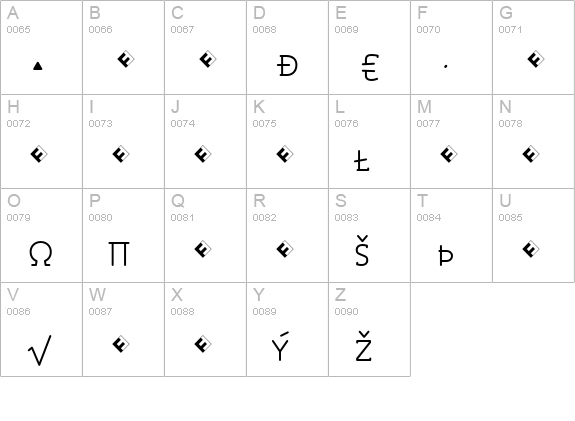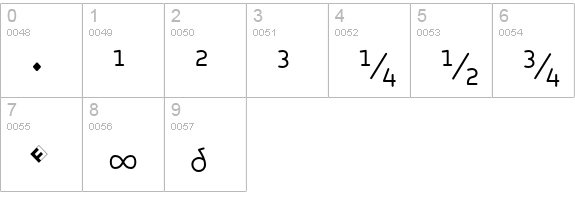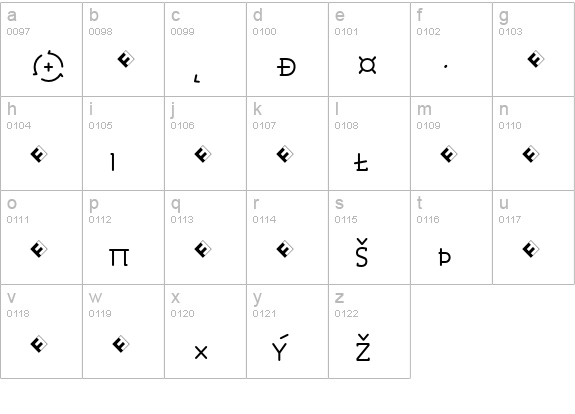
Roice-LightSCExpert Font Details
Roice-LightSCExpert is a modern and elegant font that exudes sophistication and style. With its sleek and clean lines, this font is perfect for adding a touch of class to any design project. The slim and stylish characters of Roice-LightSCExpert make it ideal for use in headings, titles, and other prominent text elements. The best part about Roice-LightSCExpert is that it is completely free to download. You can easily access this beautiful font at FontsMarket.com, where you can enhance your projects with its timeless appeal without any cost. Whether you are designing a website, creating a logo, or crafting a stylish invitation, Roice-LightSCExpert will add a touch of finesse and sophistication to your work. Download this font today and elevate your designs with its stunning aesthetic.